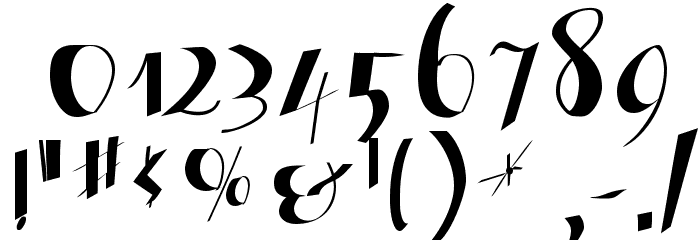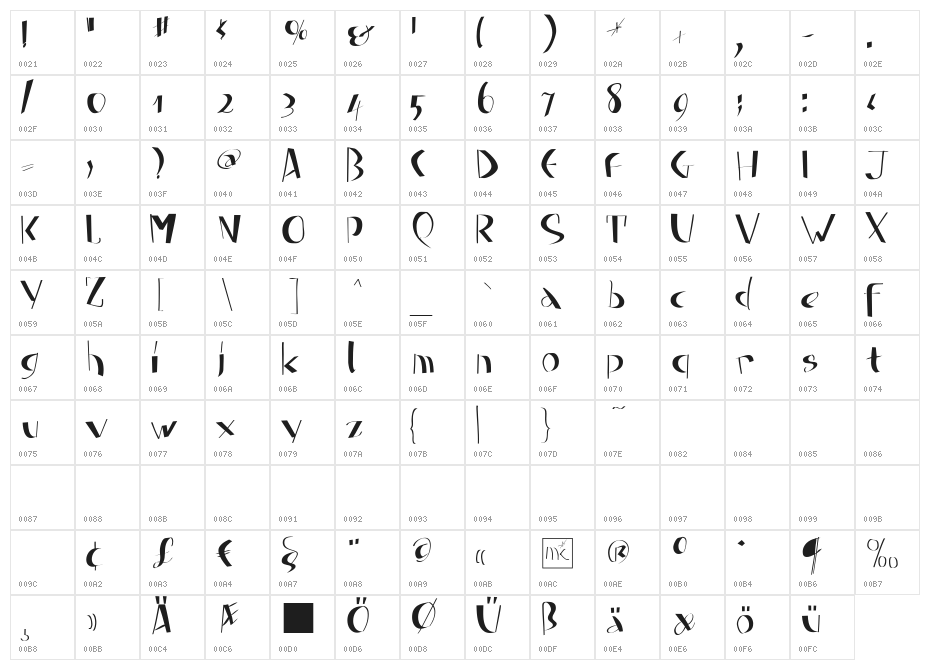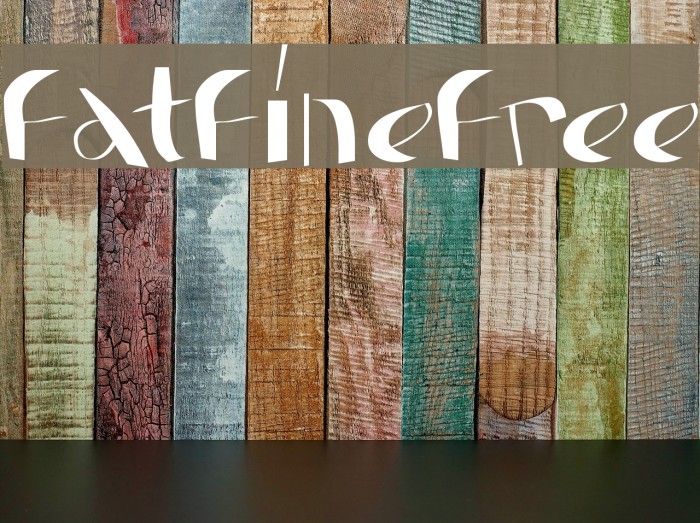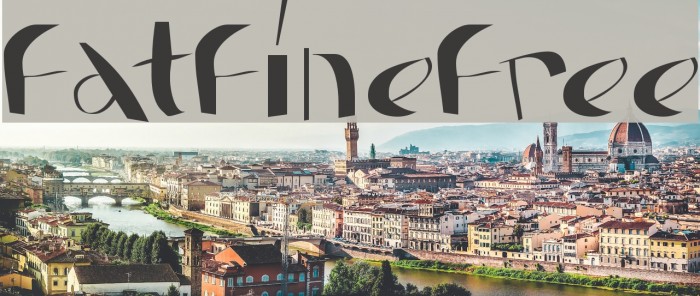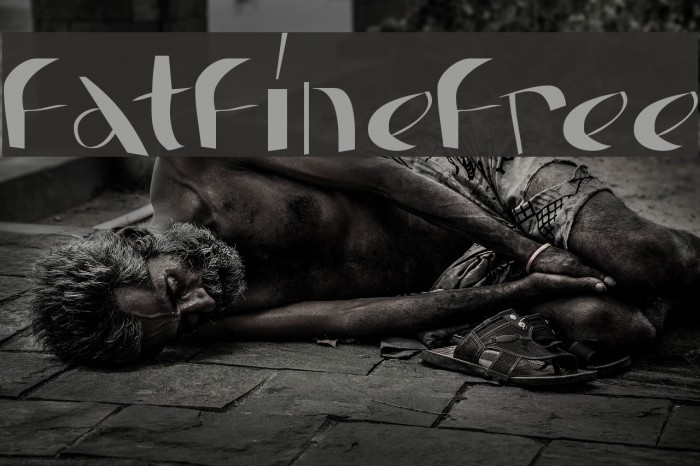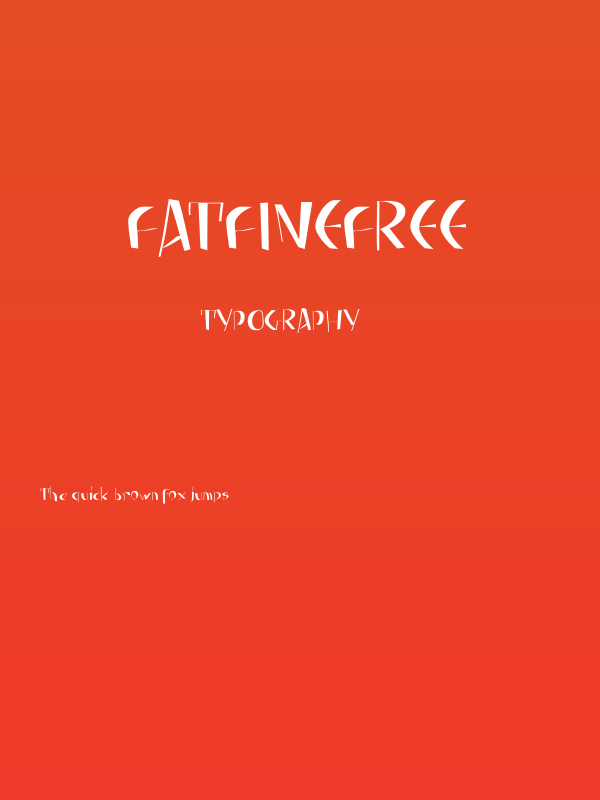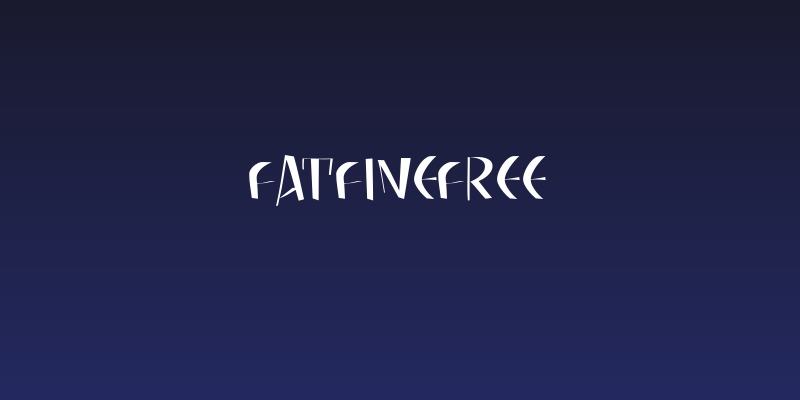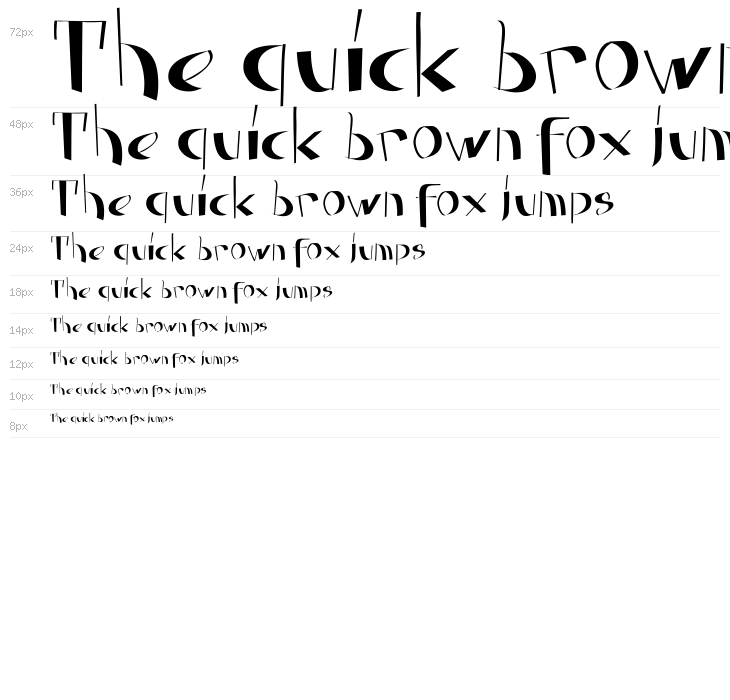
FatFineFree Font
FatFineFree Description
This font features a bold and dynamic style with a distinctively modern flair. The characters exhibit a unique blend of sharp angles and smooth curves, creating a sense of movement and energy. The uppercase letters are particularly striking, with exaggerated strokes that give them a dramatic appearance. The lowercase letters maintain this dynamic quality, with some characters having elongated ascenders and descenders. The numerals are equally bold, with a consistent weight that matches the alphabet. Special characters are creatively designed, adding to the overall artistic feel of the font. This typeface stands out with its high contrast between thick and thin strokes, making it ideal for attention-grabbing designs.